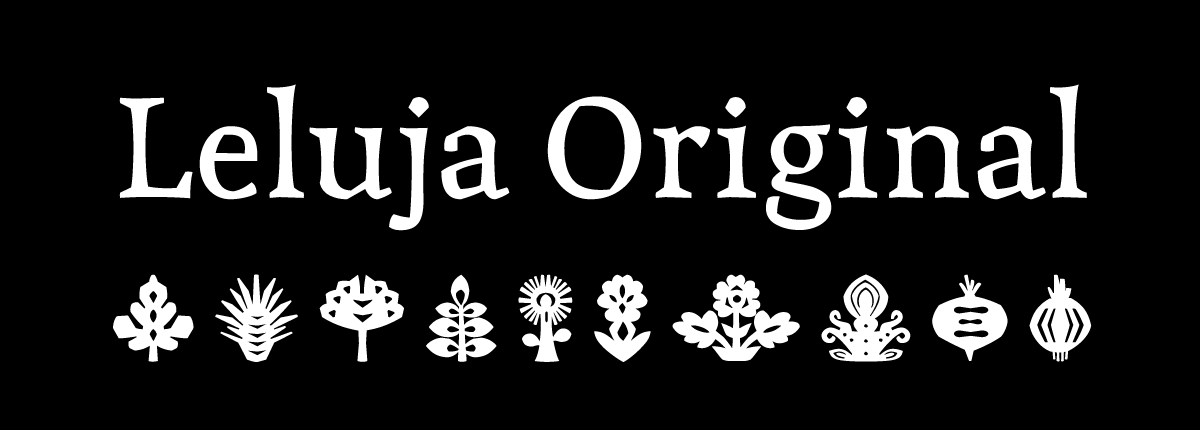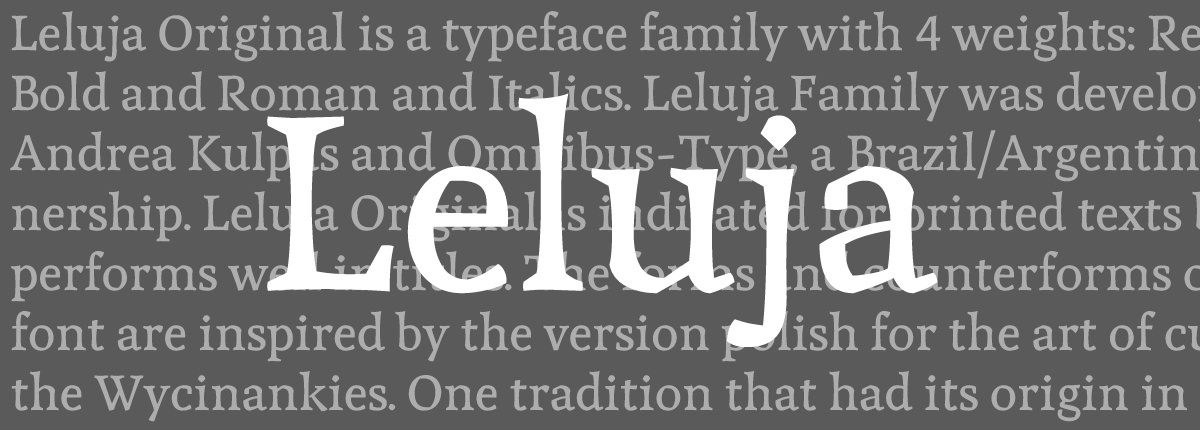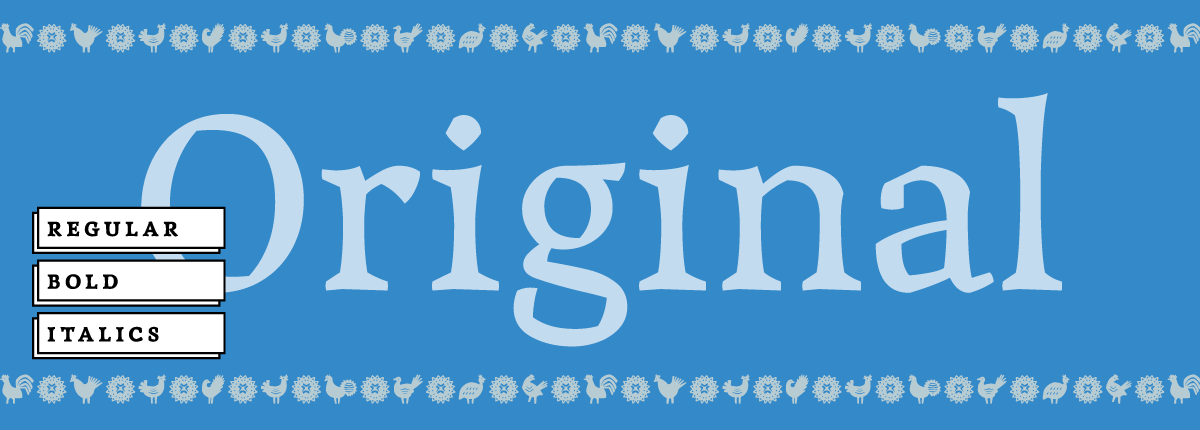
Leluja Original
Leluja Original is a typeface family with 4 weights: Regular, Italic, Bold and Bold Italic. This project was developed by Andrea Kulpas and Omnibus-Type, a Brazil/Argentina partnership. Leluja Original is indicated for printed texts but also performs well in titles. The forms and counterforms of the font are inspired by the version polish for the art of cut paper the Wycinankies. One tradition that had its origin in tree bark and leather, still has explanations that were lost in past centuries, Wycinankies have long been made with colored paper glued to the furniture and roof beams as decoration, on the windows, or even on holiday cards such as Christmas, Easter and birthdays. Wycinankies vary between Kurpie regions, characterized by being monochromatic, while those of Lowicz are colorful, composed of several layers of paper.
• Leluja Regular selected in Tipos Latinos 2016
Leluja Dingbats selected in Tipos Latinos 2022